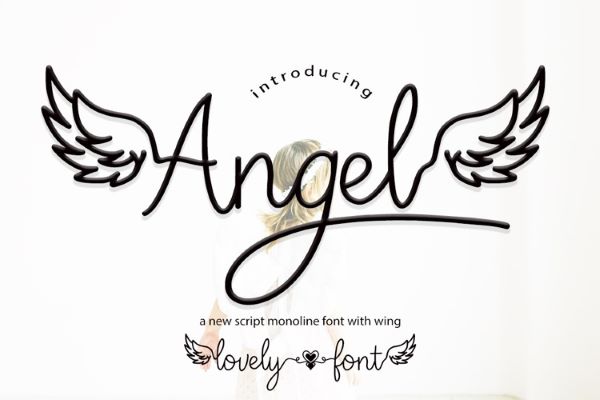
Angel Font
Angel Font is a handwritten-style typeface inspired by soft, angelic aesthetics. With gentle curves and a light, flowing rhythm, it’s perfect for quotes, invitations, branding, and creative designs that seek a dreamy, delicate, and heavenly handwritten feel.
➤ Font Name: Angel
➤ Designer: cocodesign
➤ Style: Handwriting